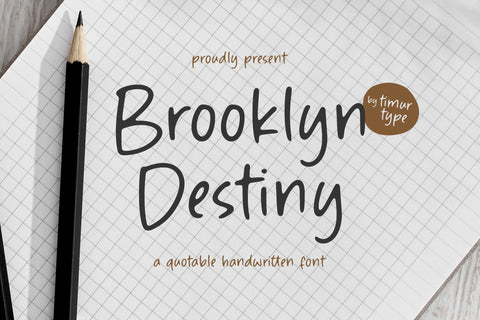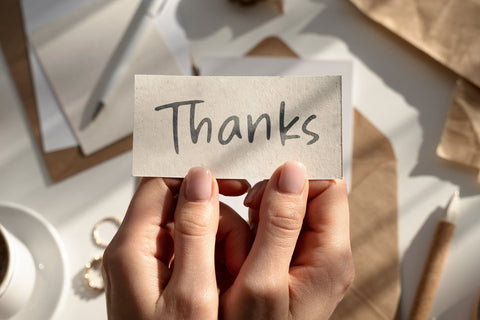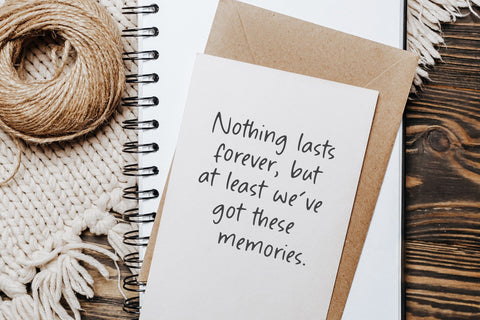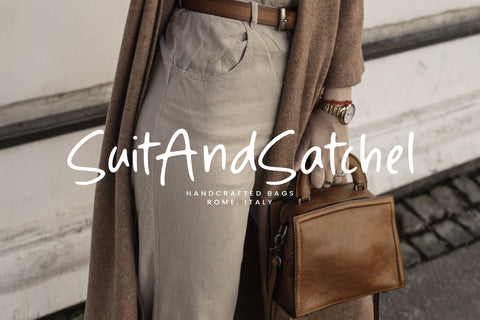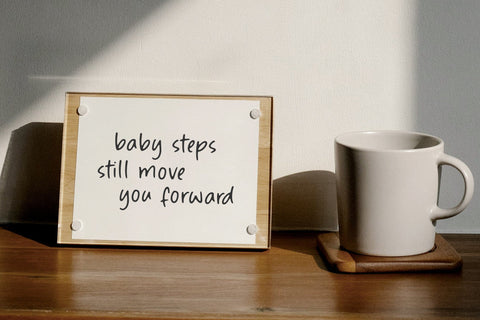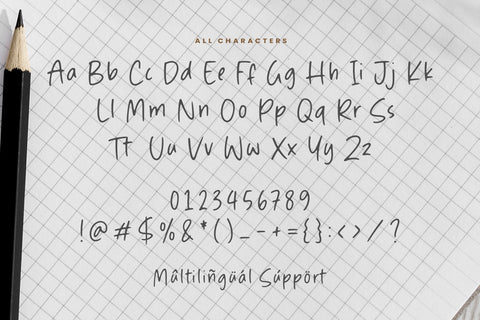
Brooklyn Destiny - Quotable Handwritten Font
Brooklyn Destiny is a Quotable Handwritten Font
This font is a stylish, handwritten font that exudes a warm and inviting charm. With its smooth curves and flowing lines, this font captures the essence of touch and creativity. Ideal for quotes, invitations, and branding, Brooklyn Destiny balances elegance with a casual vibe, making it perfect for projects that seek to convey authenticity and a sense of connection. Its versatile nature ensures it stands out while remaining approachable, adding a unique flair to any design.
Brooklyn Destiny also supports multilingualism